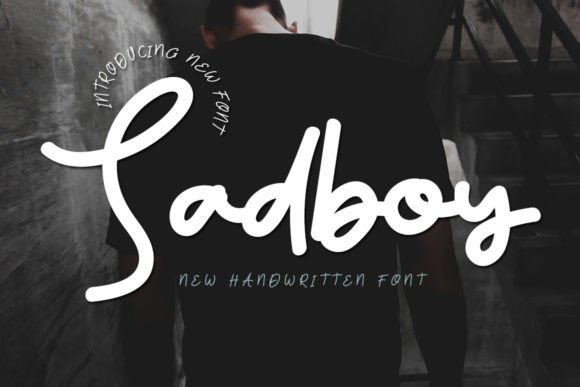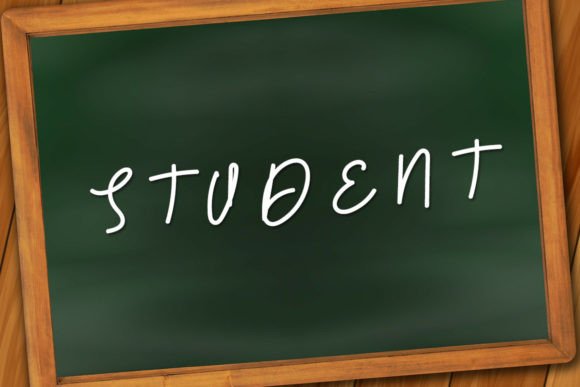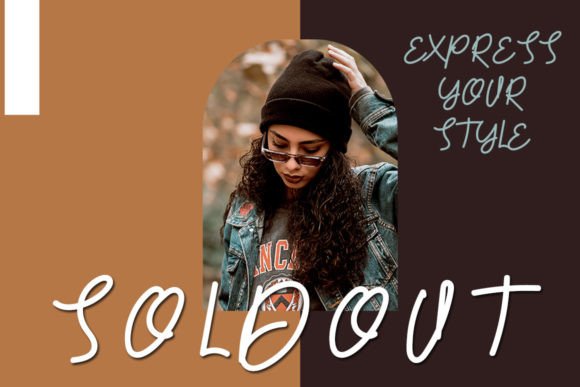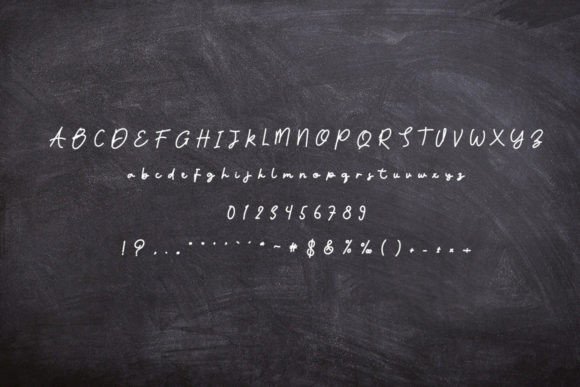
Sadboy Font
About Sadboy Font
Sadboy is a font that carries a unique charm with its beautiful and sweet design. With a fresh, clean, and elegant appearance, Sadboy is versatile and well-suited for a diverse range of projects, seamlessly fitting into both formal and informal contexts. Its aesthetic appeal can enhance the visual aspect of your designs, adding a touch of beauty and uniqueness.
The beauty of Sadboy lies in its sweet and elegant characteristics. This font is visually pleasing and brings a level of sophistication to various applications. Whether used in formal documents, informal communications, or creative projects, Sadboy adds a distinct and stylish element that enhances the overall design.
The clean lines of Sadboy contribute to its versatility, making it adaptable to different design needs. Its clarity ensures readability, making it a practical choice for a variety of projects, from business documents to creative expressions.
In the context of business branding, Sadboy can play a significant role in elevating the overall aesthetic. The font’s beauty and sweetness convey a positive and appealing image, contributing to the visual attractiveness of your brand. Its elegant appearance adds a touch of uniqueness that can set your brand apart.
Fonts are crucial elements in design, and Sadboy is crafted with the purpose of enhancing creative projects. Its versatility allows it to be used across various mediums, maintaining a consistent and beautiful appearance on digital platforms, print materials, and more.
In summary, Sadboy is more than just a font; it’s a design asset that brings beauty, sweetness, and elegance to your projects. Whether for formal or informal contexts, Sadboy stands ready to add a touch of beauty and uniqueness to your designs, making them visually appealing and memorable.